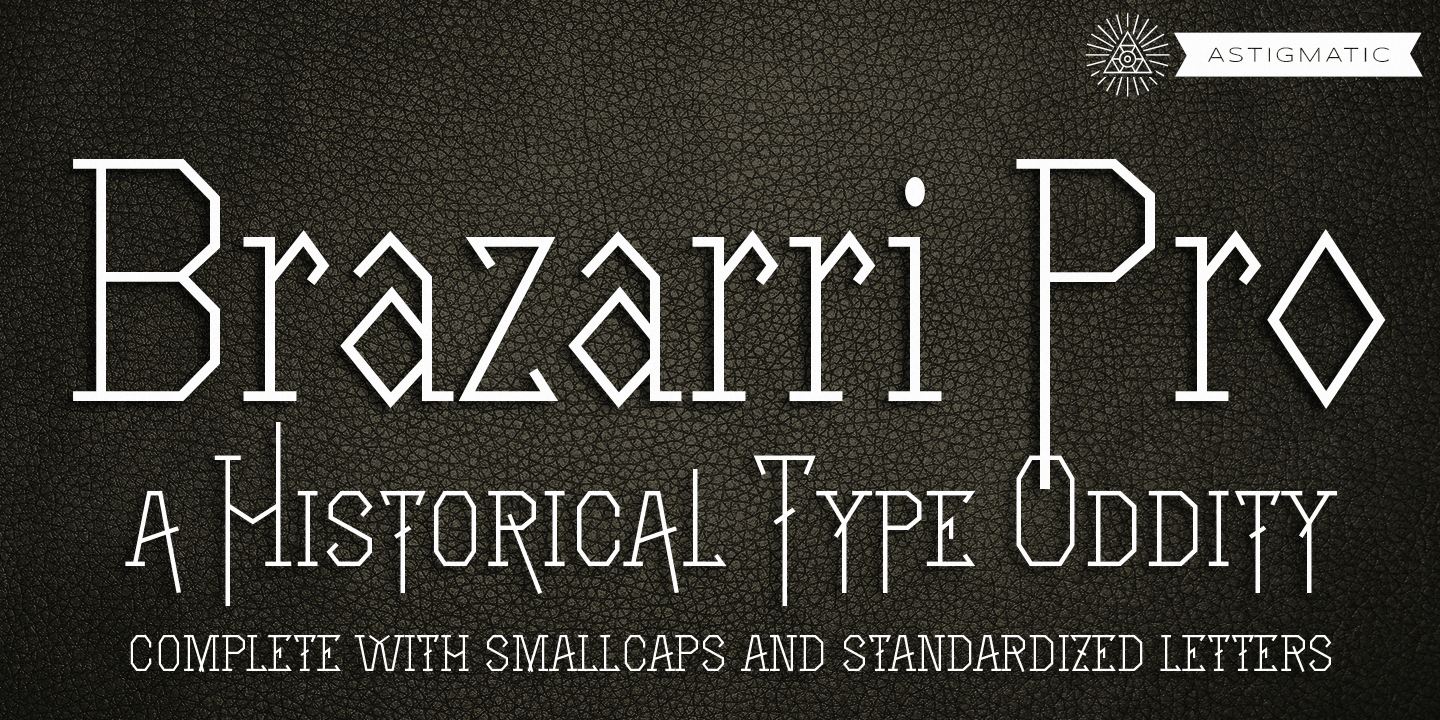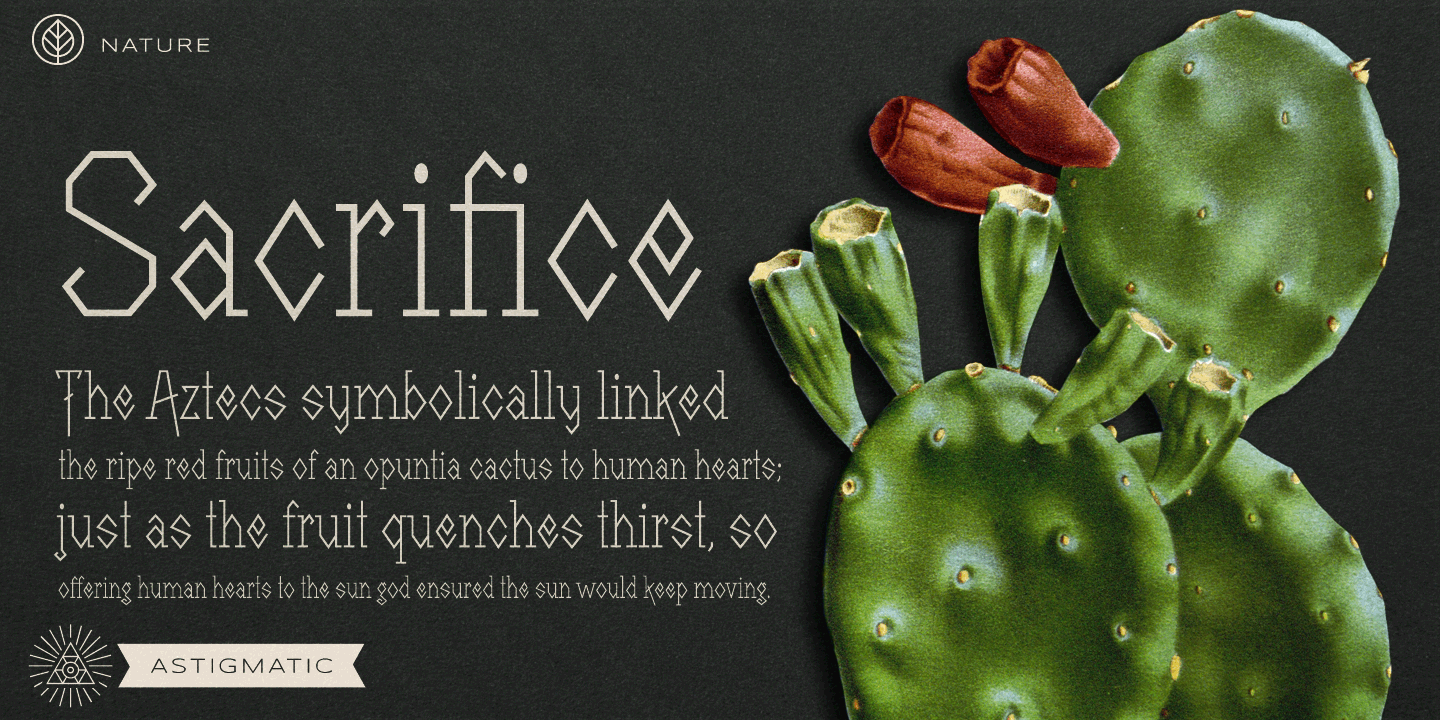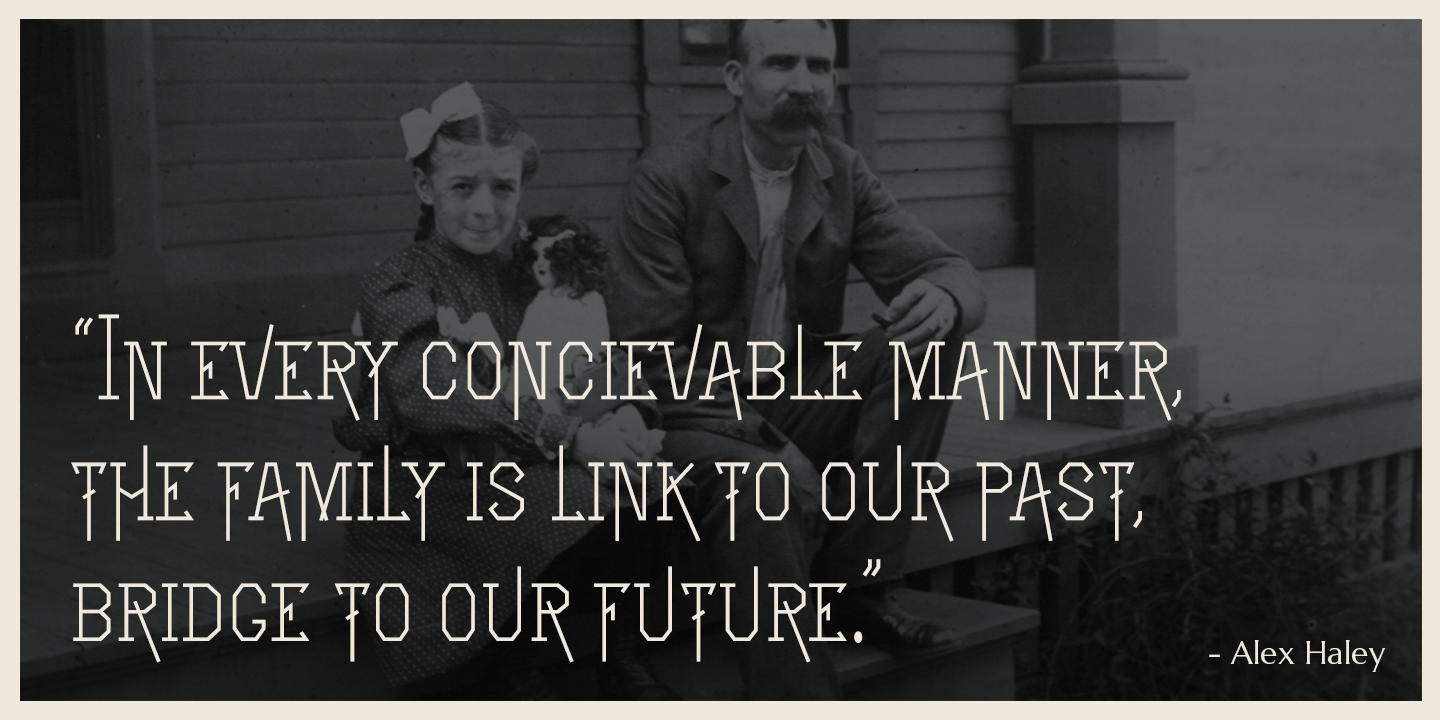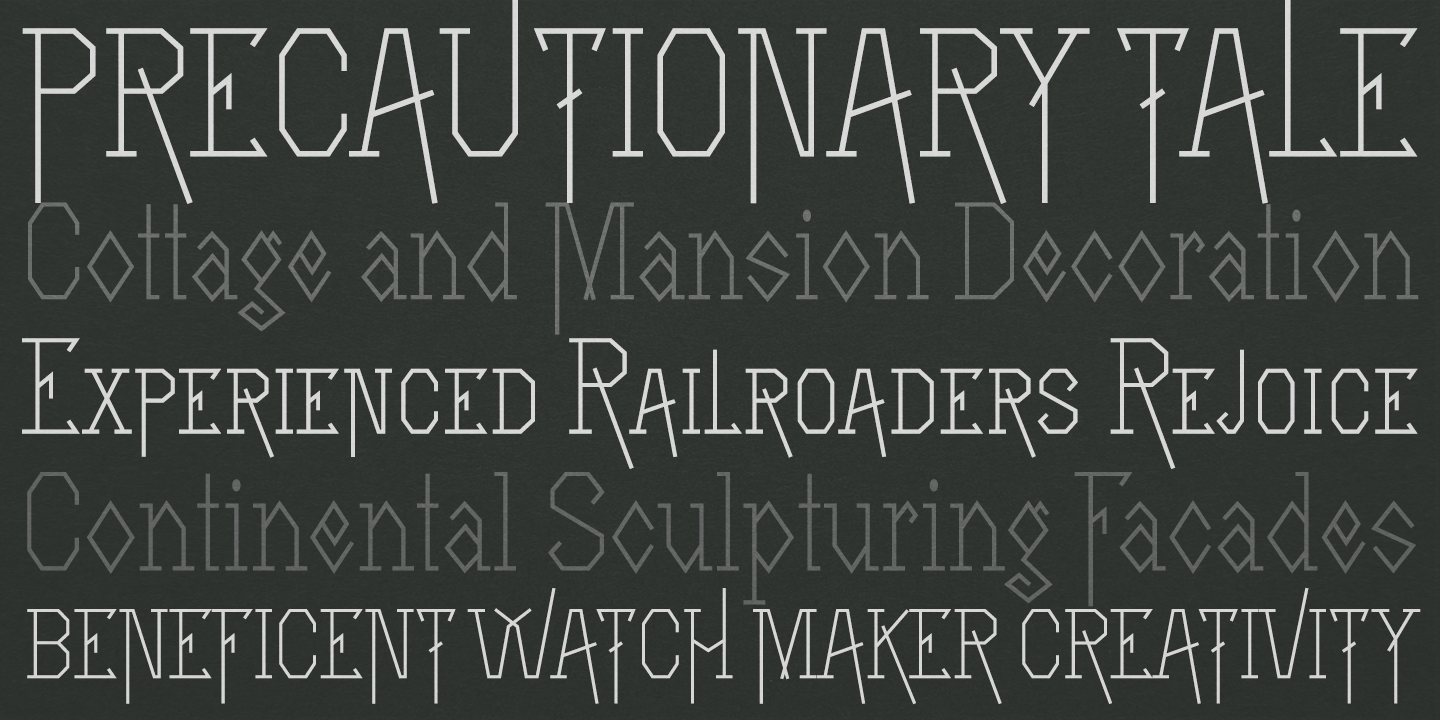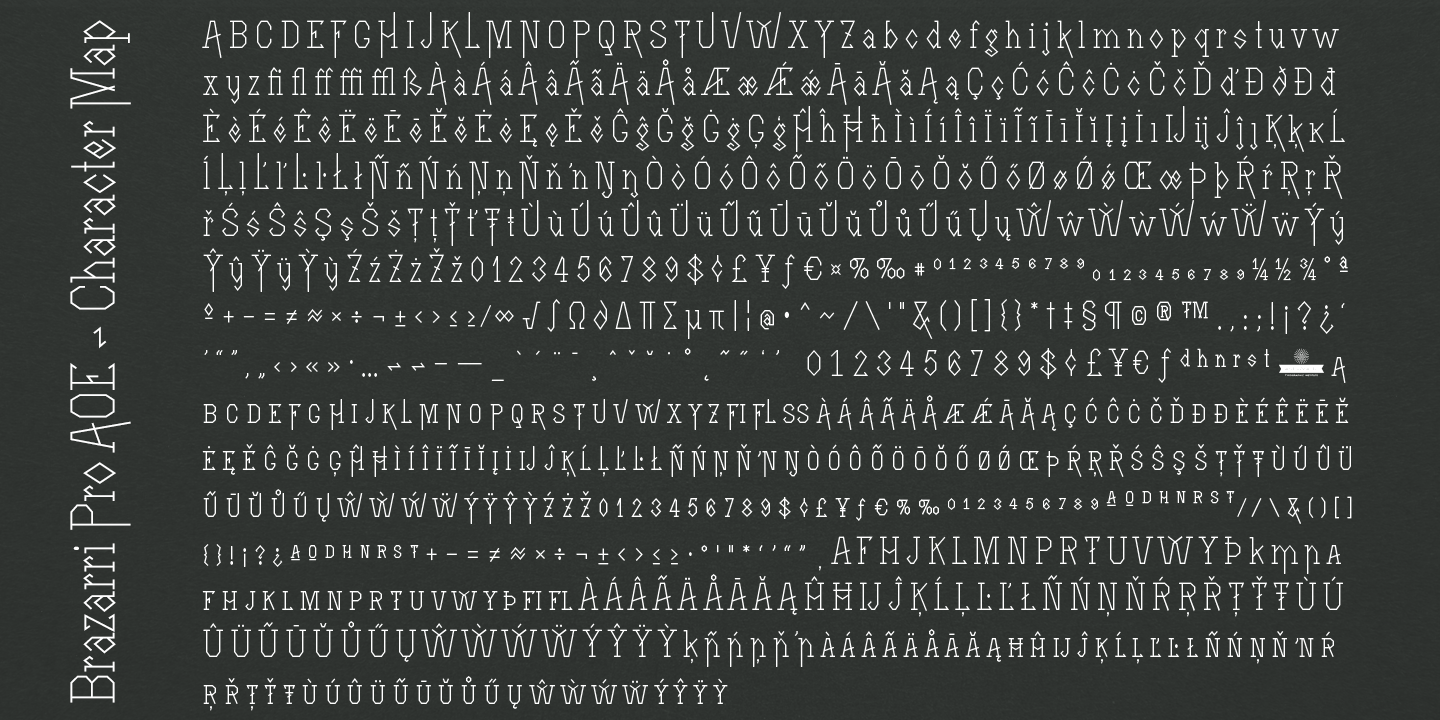
Brazarri Pro AOE
Font Family by Astigmatic One Eye
The Brazzari Pro AOE is an unusual but fun geometric typestyle design. It is the historical revival and elaboration of the "Bizarre" typeface created by MacKellar, Smiths, & Jordan Co. in 1884. What began as a basic character set of Capitals, lowercase, numerals, and a small handful of punctuation characters has been expanded to a full character set including unlimited fractionals, superiors & inferiors, ordinals, tabular & proportional figures, and an expanded language glyph set, all with a smallcaps and Caps to Smallcap set to match. Definitely a niché use typeface, however, it has some great appeal.
The letterforms of Brazarri Pro AOE are easy to convert to paths and extend various stems, making this revival something you can really let your imagination run wild with for your designs.
Enable the Stylistic Alternates feature for standardized letterforms without the extensions.
Extensive language support. Invocation has accented and special characters that support the following languages: Afrikaans, Albanian, Basque, Bosnian, Breton, Catalan Cornish, Corsican, Croatian, Czech, Danish, Dutch, Embu, English, Esperanto, Estonian, Faroese, Filipino, Finnish, French, Galician, German, Hungarian, Icelandic, Irish, Indonesian, Italian, Kurdish, Leonese, Luxenbourgish, Malay, Maltese, Manx, Maori, Meru, Morisyen, North Ndebele, Norwegian Bokmål, Norwegian Nynorsk, Nyankole, Occitan, Oromo, Polish, Portuguese, Rhaeto-Romanic, Romanian, Scottish Gaelic, Scots, Serbian (Latin), Slovak, Slovenian, Spanish, Swahili, Swedish, Tagalog, Turkish, Walloon, & Welsh.
One of my guilty pleasures is in taking the time to recreate historical typefaces as digital fonts, and expand on their character sets to enable them to be used more widely than their limited originals. A lot of incredible historical typestyles created as wood or metal type with bare bones character sets have been lost or only exist as limited specimen proofs in old books. These typefaces may have more niché uses than modern typefaces, but I believe it is important nonetheless to preserve these typefaces for future generations. These typefaces, if nothing else, can often inspire new creations.